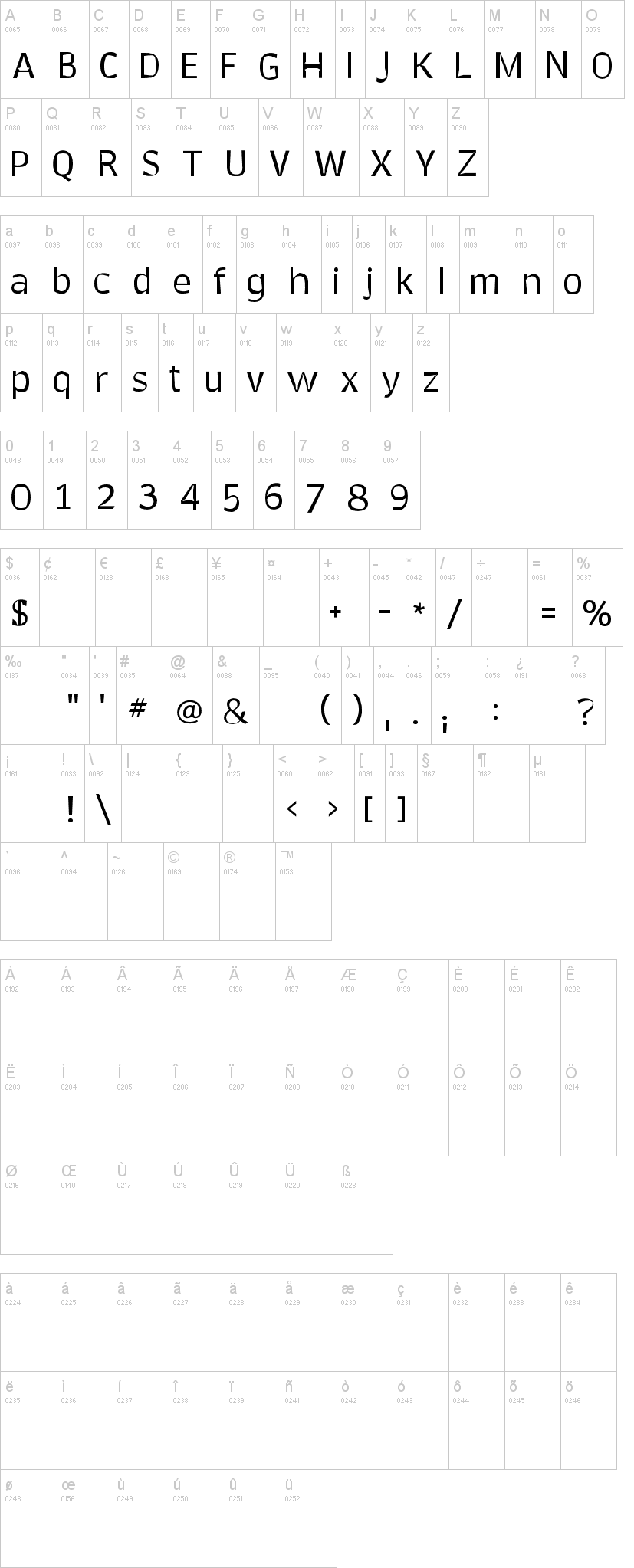
Шрифт Bounce
Bounce maintains an overall stroke balance from glyph to glyph, yet still manages to be packed full of extreme width differences. Every glyph has a thinner form tying into a bigger, thicker, or if you like, bolder stroke, and not just a little bit bolder. On top of that Bounce is incredibly readable, down to 4 point. The overall tone and color of the text set in Bounce will appear even, and yet you won't be able to help but notice it is full of flavor.